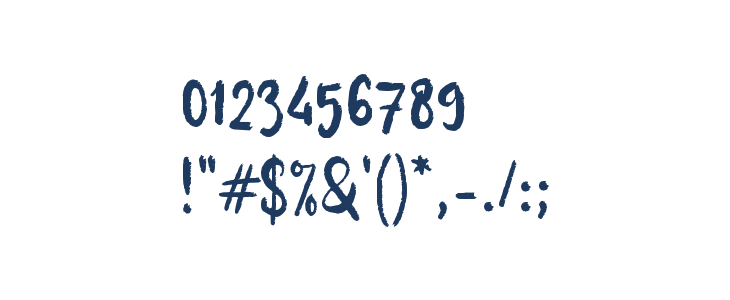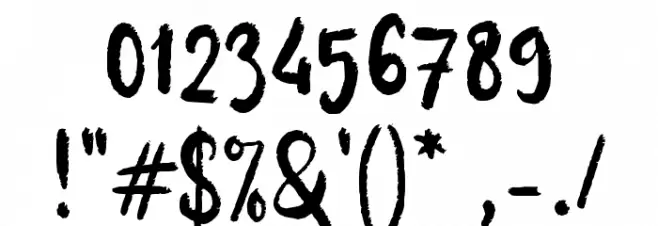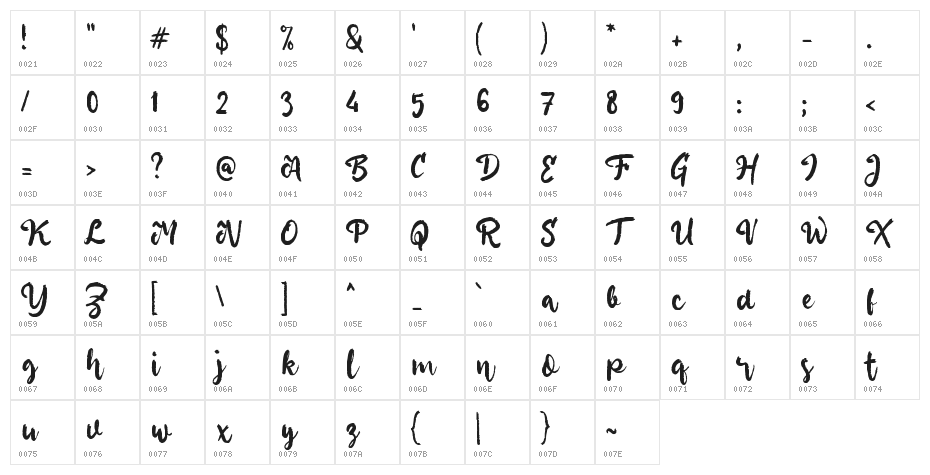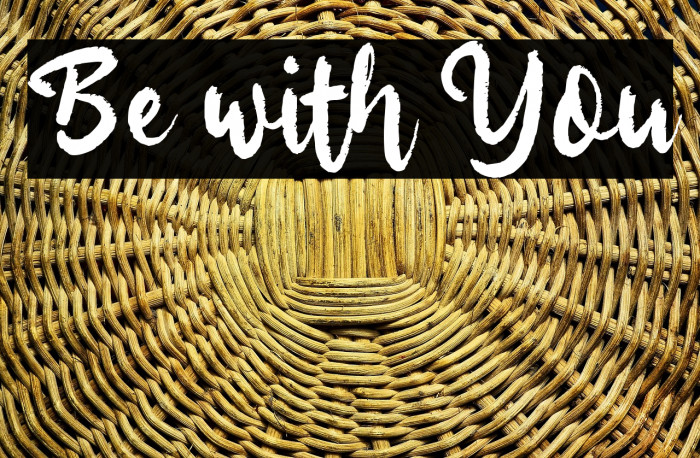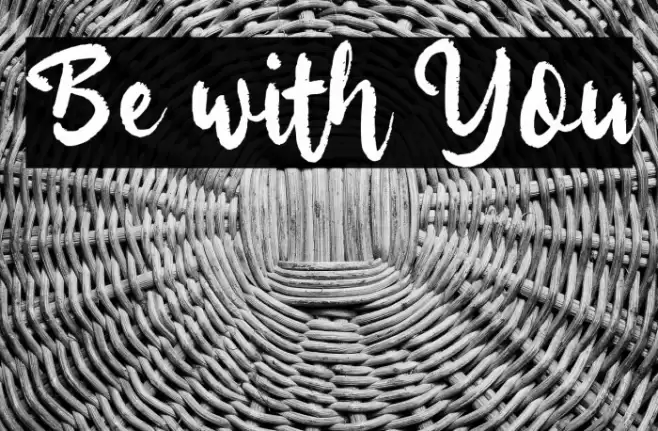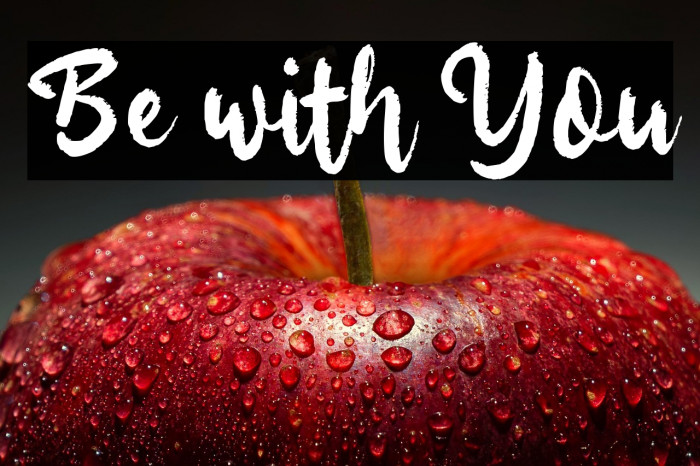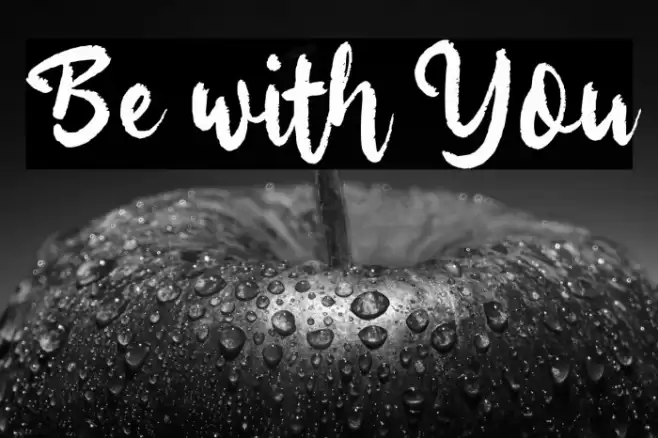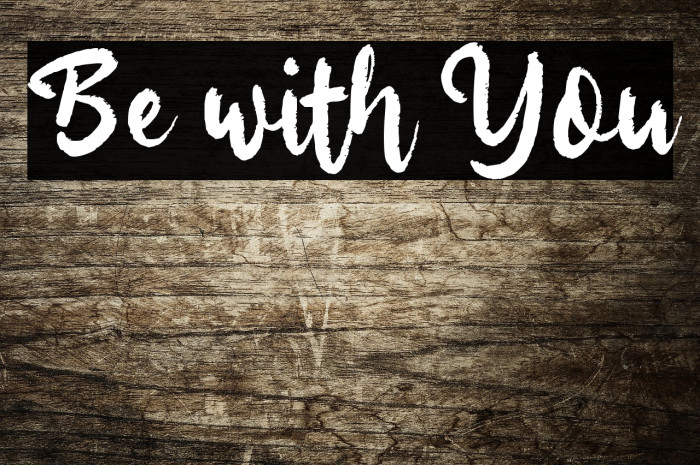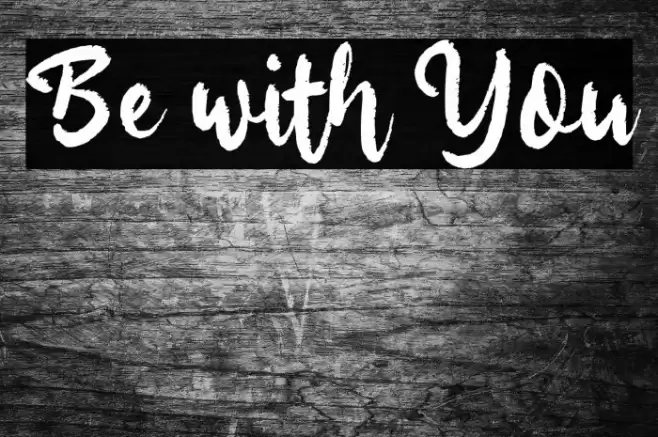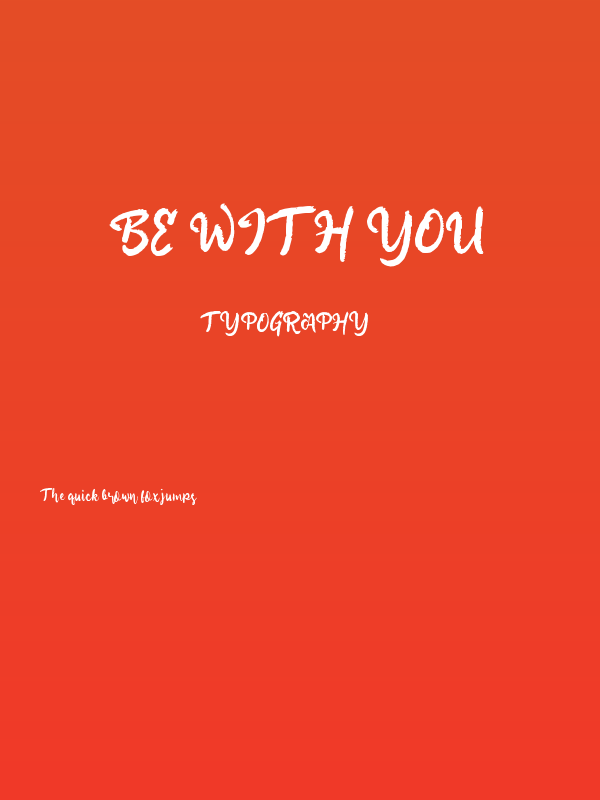
Be with You Font
Be with You Description
This font exudes a bold and expressive handwritten style, characterized by its fluid and dynamic strokes. The letters are crafted with a sense of movement, giving them a lively and energetic appearance. The uppercase letters are slightly more structured, while the lowercase letters maintain a casual and flowing script. The numbers and special characters are consistent with the overall style, ensuring a cohesive look across all elements. The font's playful yet sophisticated design makes it suitable for a variety of creative projects.